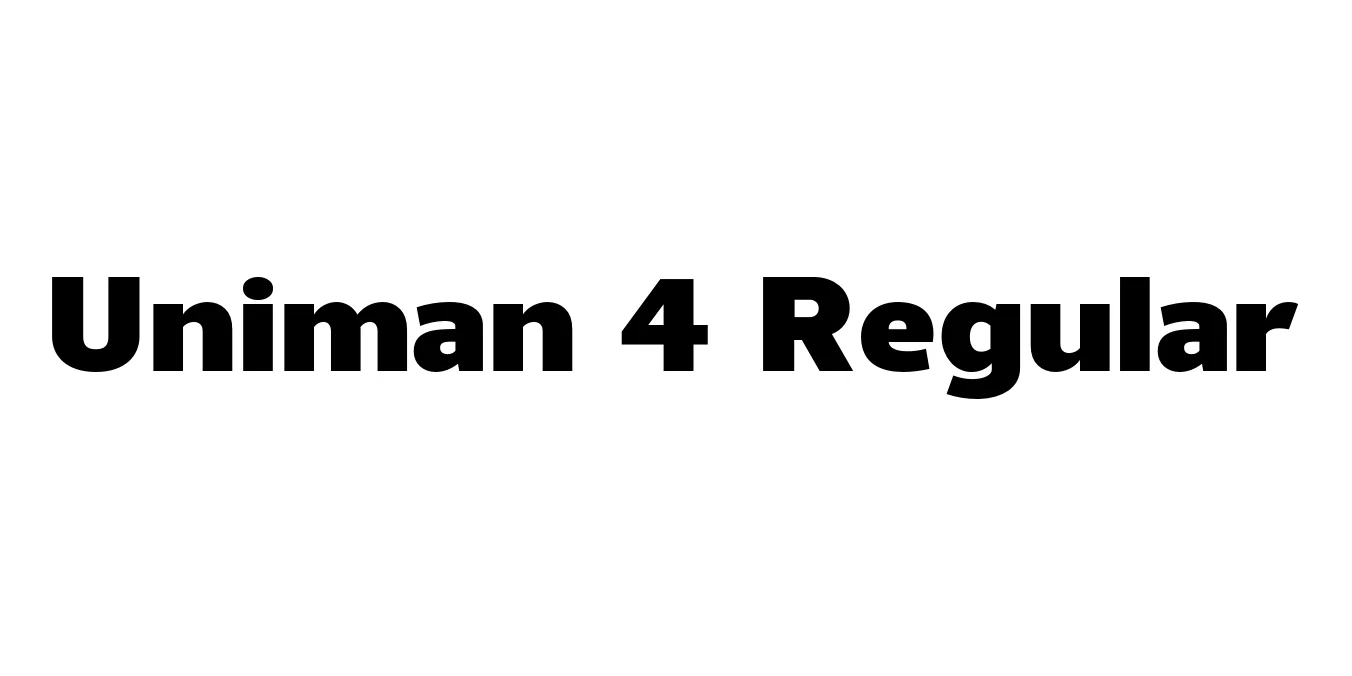
Uniman 4 Regular
Designed by Dmitry Rastvortsev
Uniman 4 Regular is a sophisticated sans-serif typeface developed by the renowned Ukrainian type designer Dmitry Rastvortsev. The font was conceived with the core objective of being a universal typographic tool, offering a neutral yet professional aesthetic that adapts seamlessly to diverse environments. Its balanced proportions and clean, minimalist lines provide a high level of legibility, making it a reliable choice for both high-impact branding and subtle information hierarchy.
Technically, the Uniman family is known for its extensive range of weights and widths, where the '4' designation often signifies a specific structural width designed for optimal clarity in body text. Built on a geometric foundation with humanist influences, Uniman 4 Regular avoids unnecessary decorative elements, focusing instead on clarity and functionality. It is widely utilized in modern digital interfaces and printed corporate materials to convey a sense of organization and contemporary style.
Uniman 4 Regular Best Uses
Perfect for logos, stationery, and internal documentation needing a clean look.
Highly effective for body copy and UI components due to its high legibility.
Renders sharply on small screens, making it ideal for mobile user interfaces.
Suitable for magazine layouts, brochures, and instructional manuals.
Clean outlines allow for excellent readability from various distances.